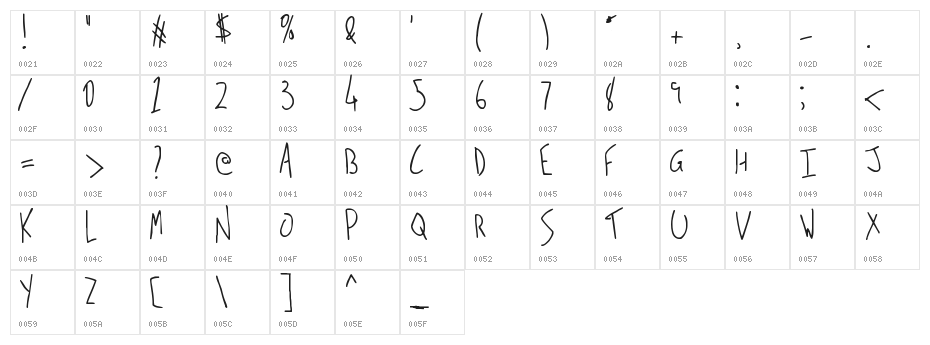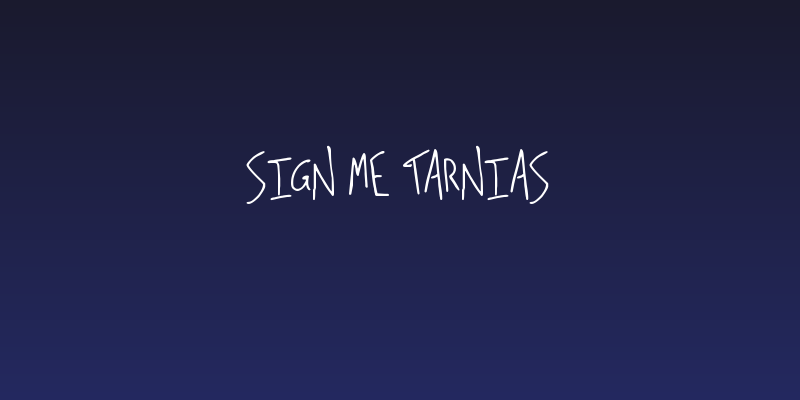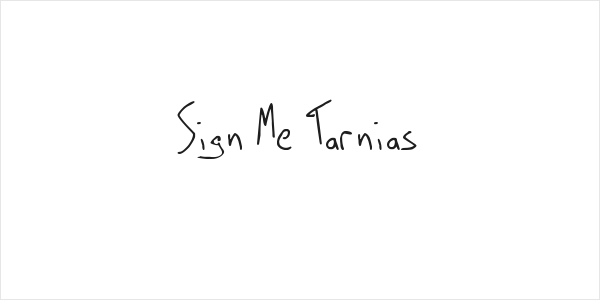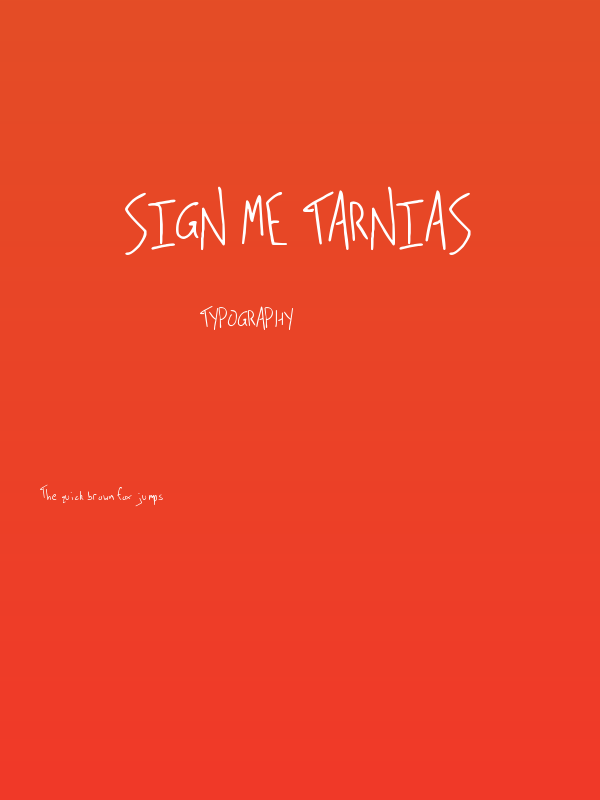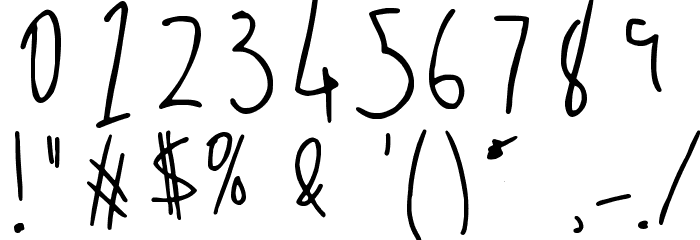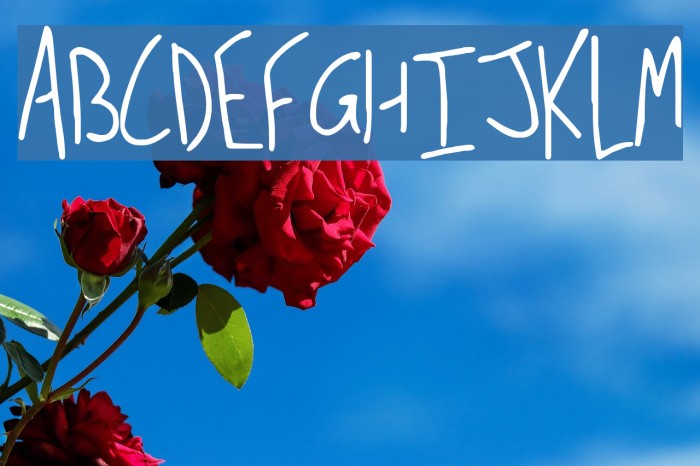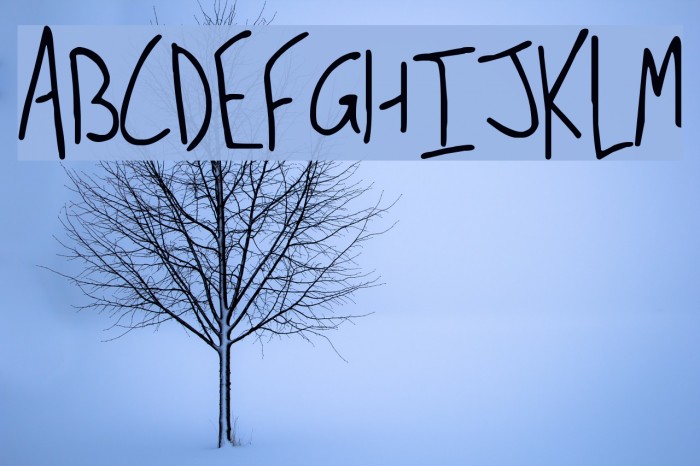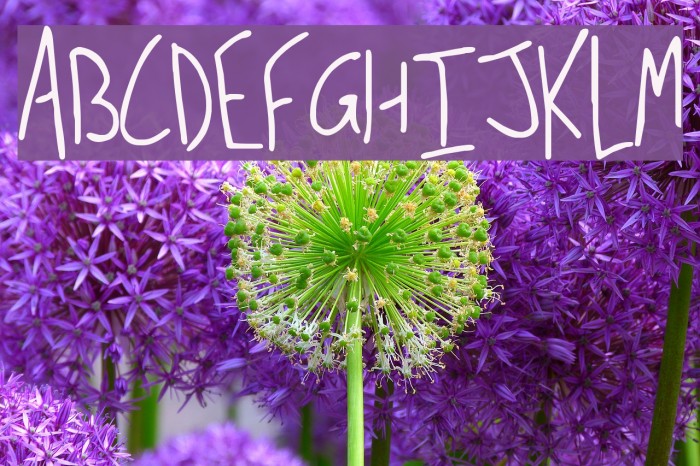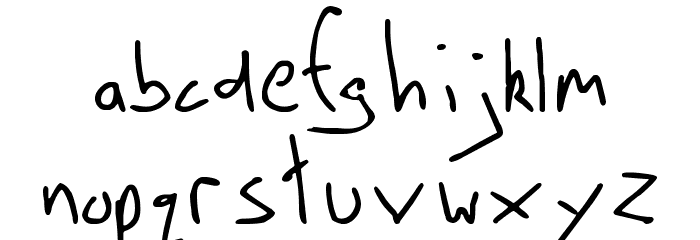
Sign Me Tarnias Font
Sign Me Tarnias Description
This font features a playful and informal handwritten style, characterized by its irregular and slightly uneven strokes. The letters are freeform, with varying heights and angles, giving it a casual and spontaneous appearance. The uppercase letters are bold and prominent, while the lowercase letters maintain a consistent flow. Numbers and special characters follow the same informal style, making the font versatile for creative projects. The overall look is dynamic and expressive, perfect for conveying a sense of personality and creativity.
SIGN-ME-TARNIAS UPPERCASE
SIGN-ME-TARNIAS LOWERCASE
SIGN-ME-TARNIAS OTHER CHARS
| Proposed Projects | Ideal for greeting cards, personal notes, children's books, and creative branding projects. |